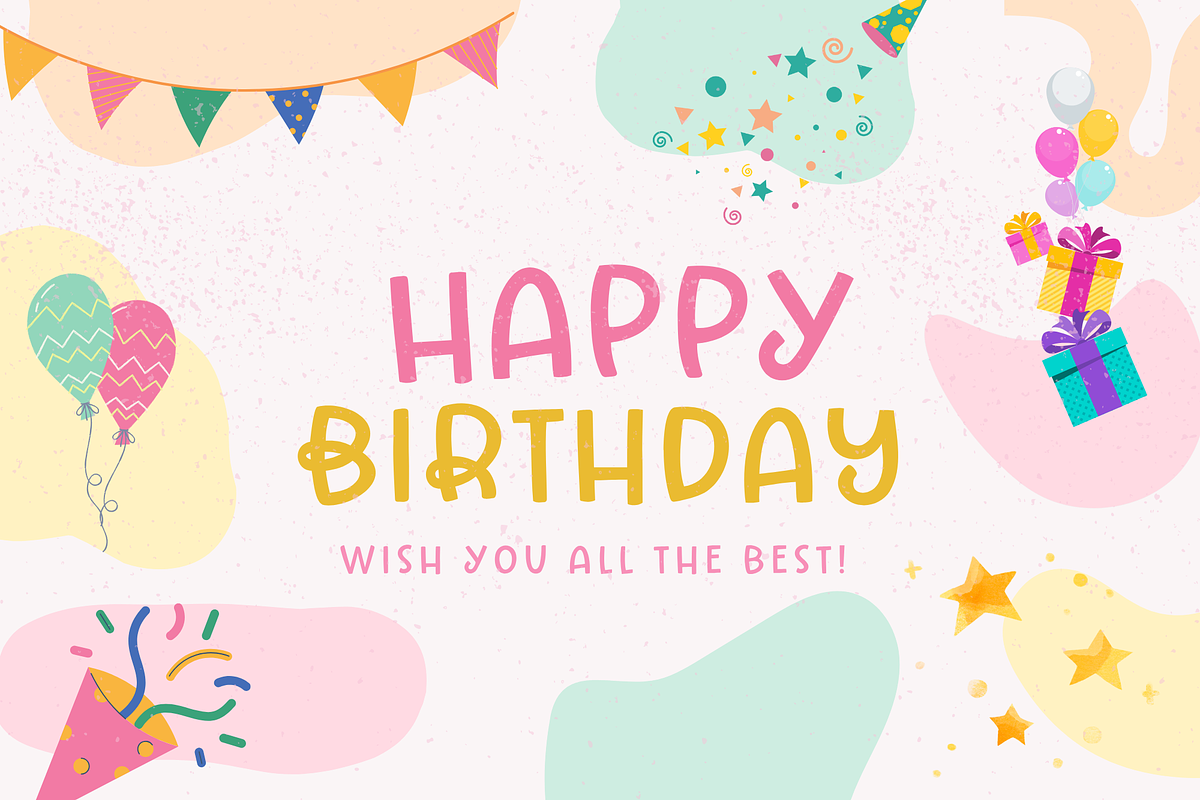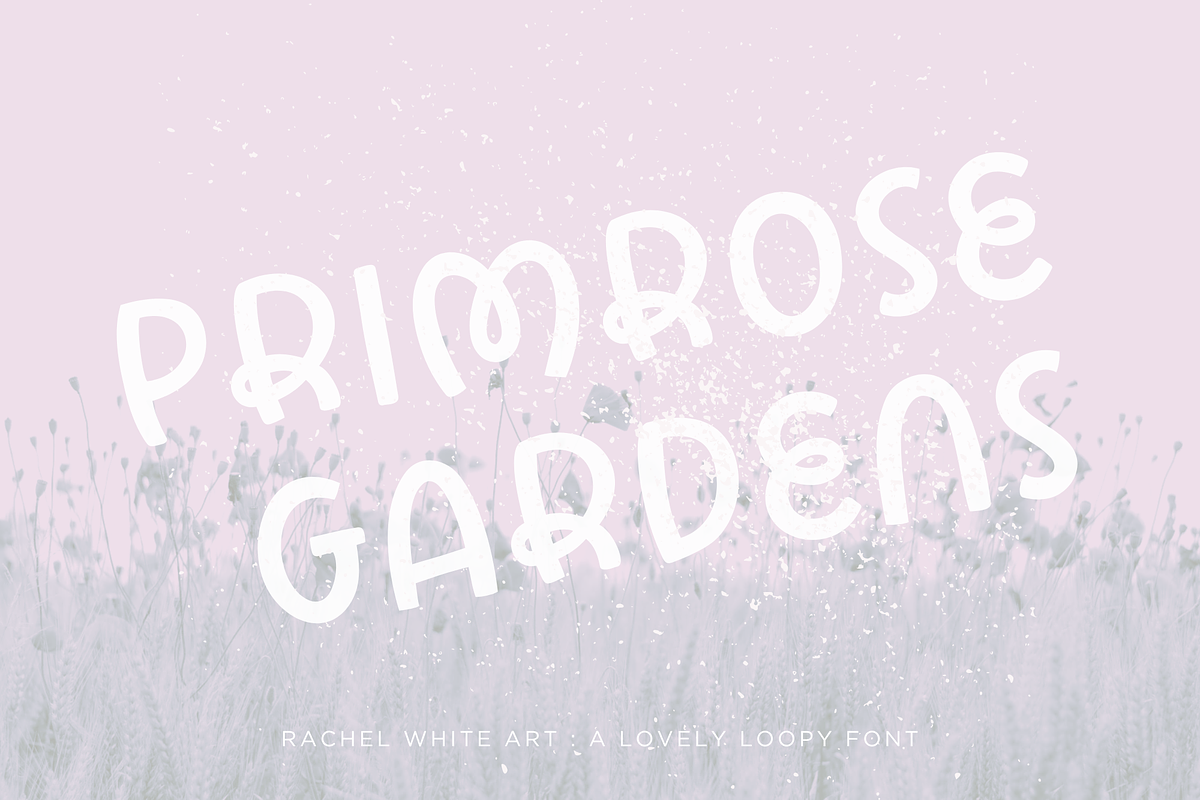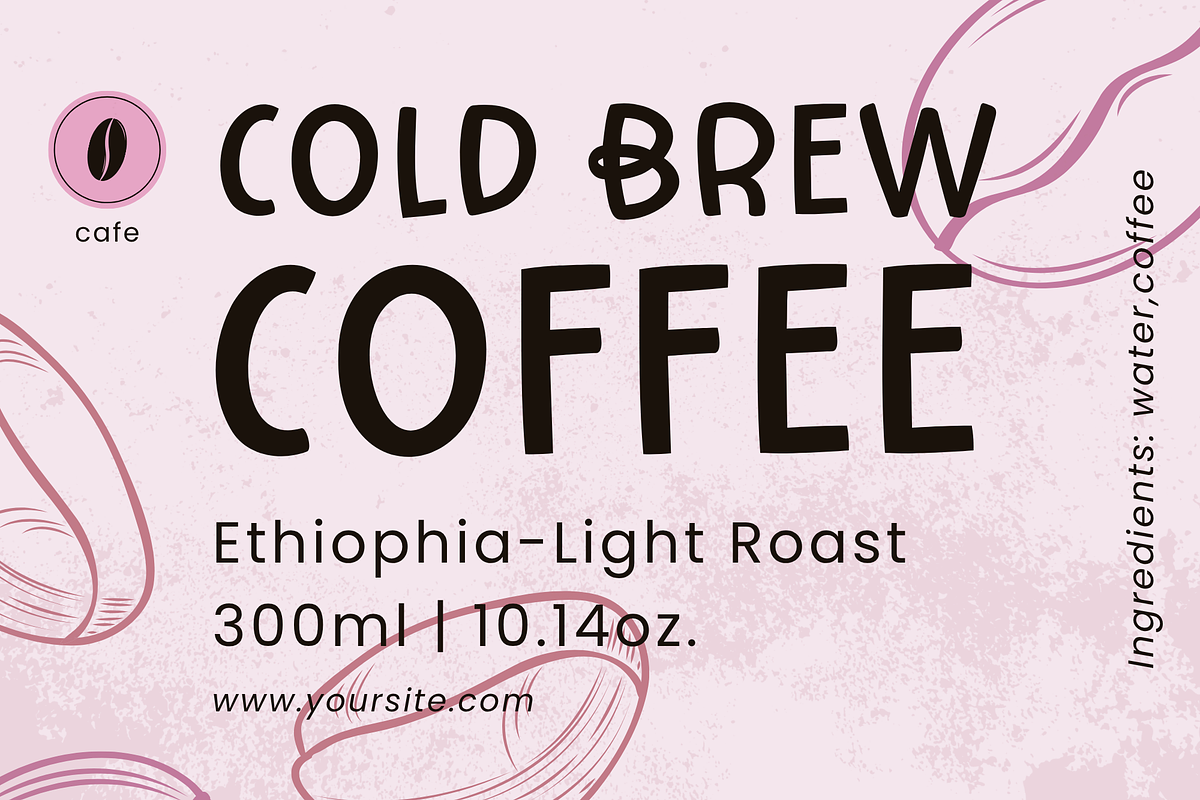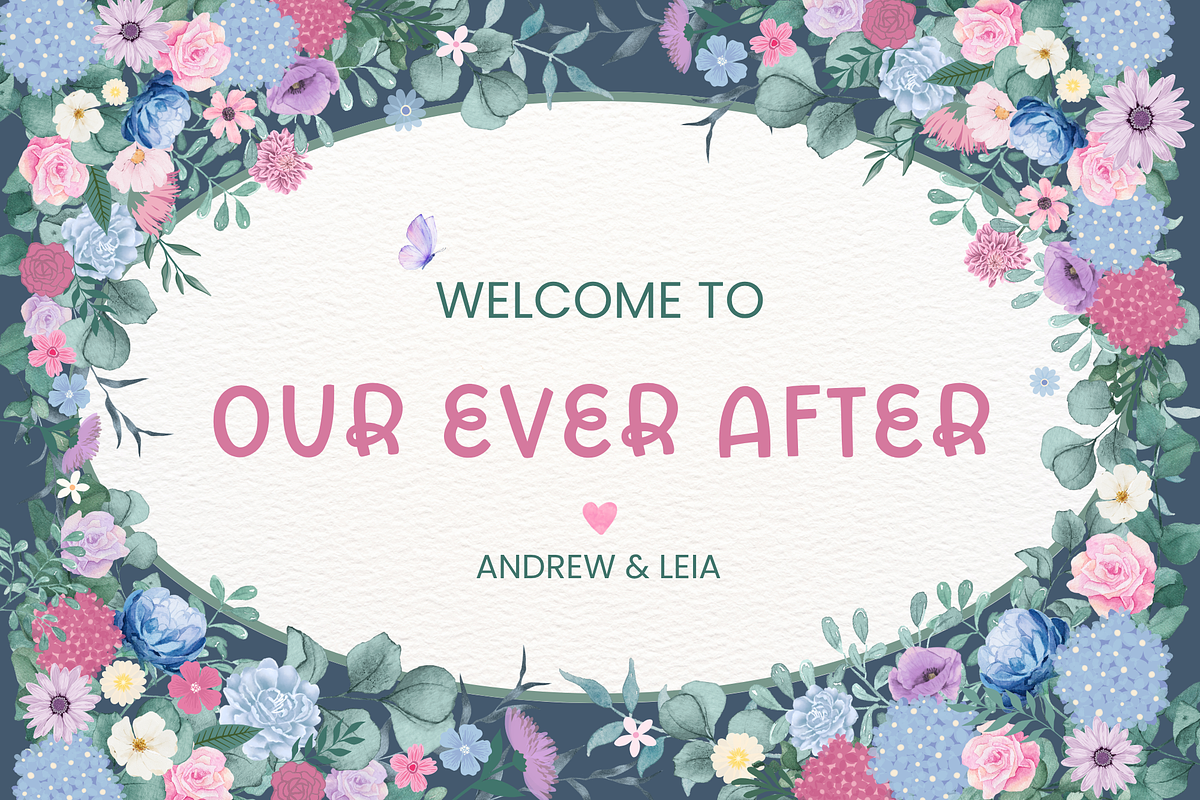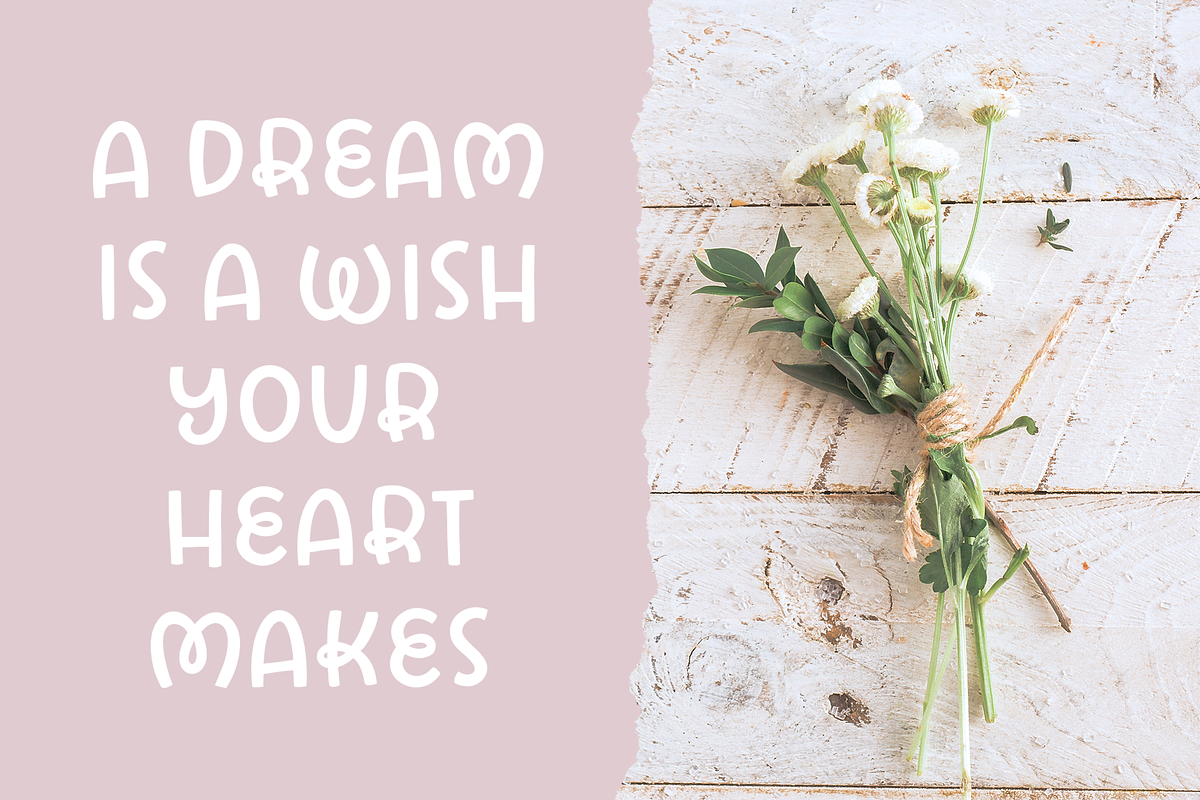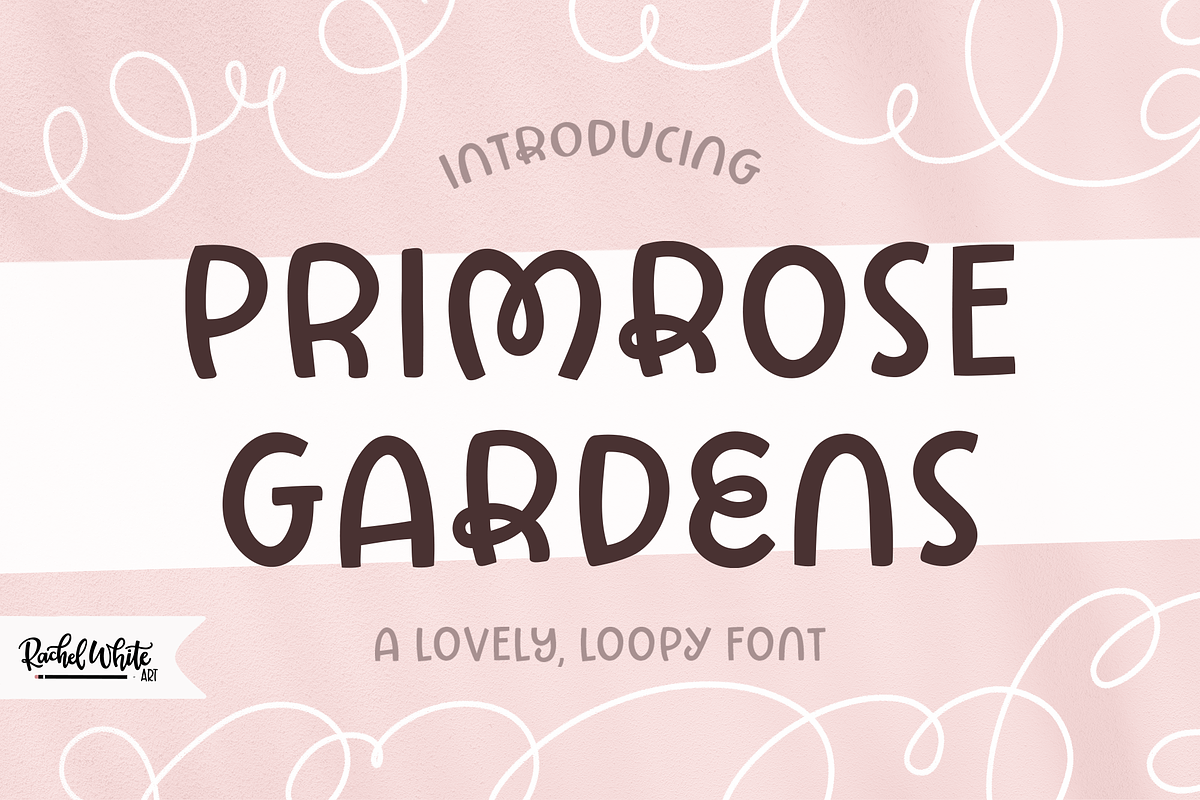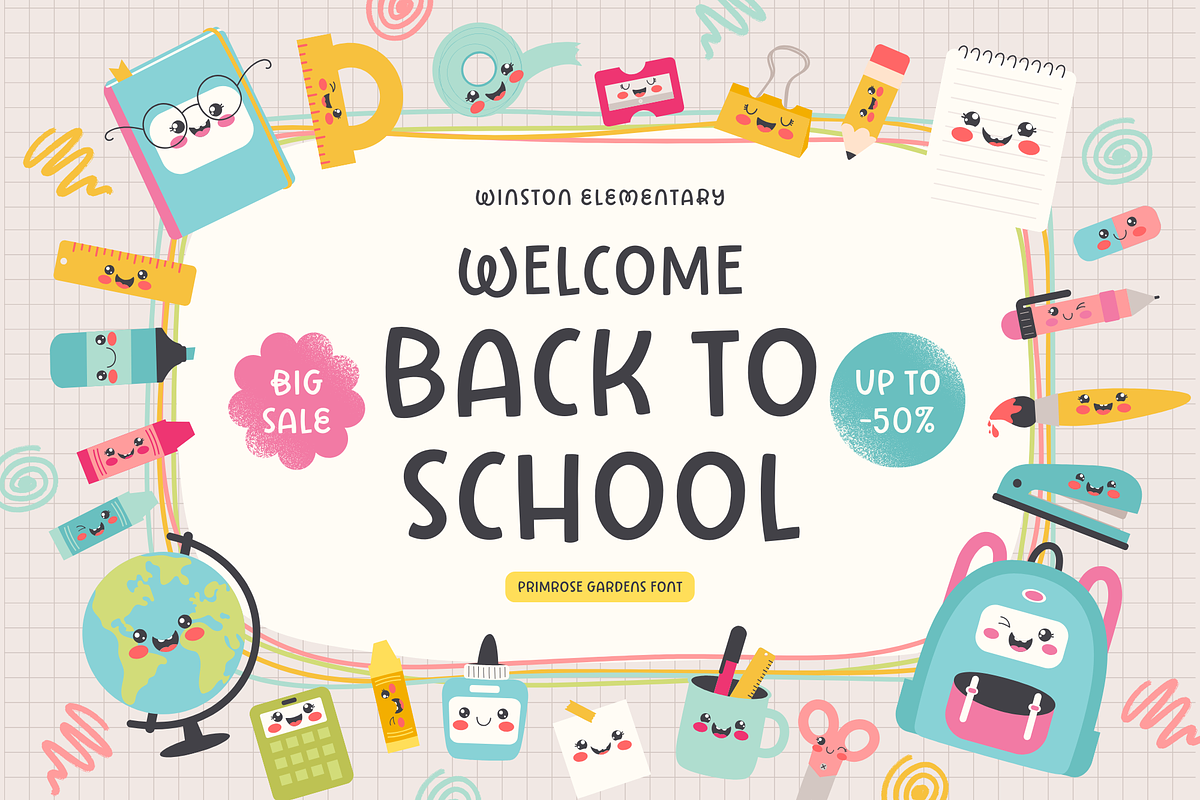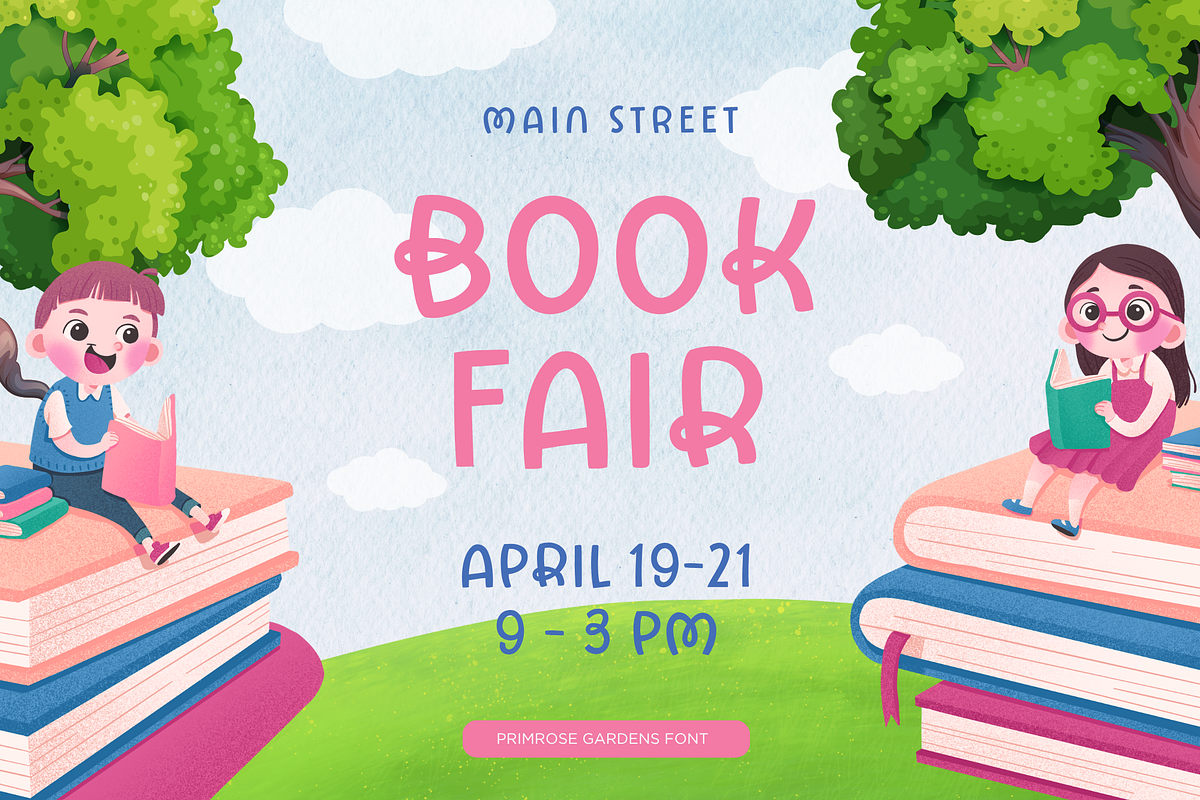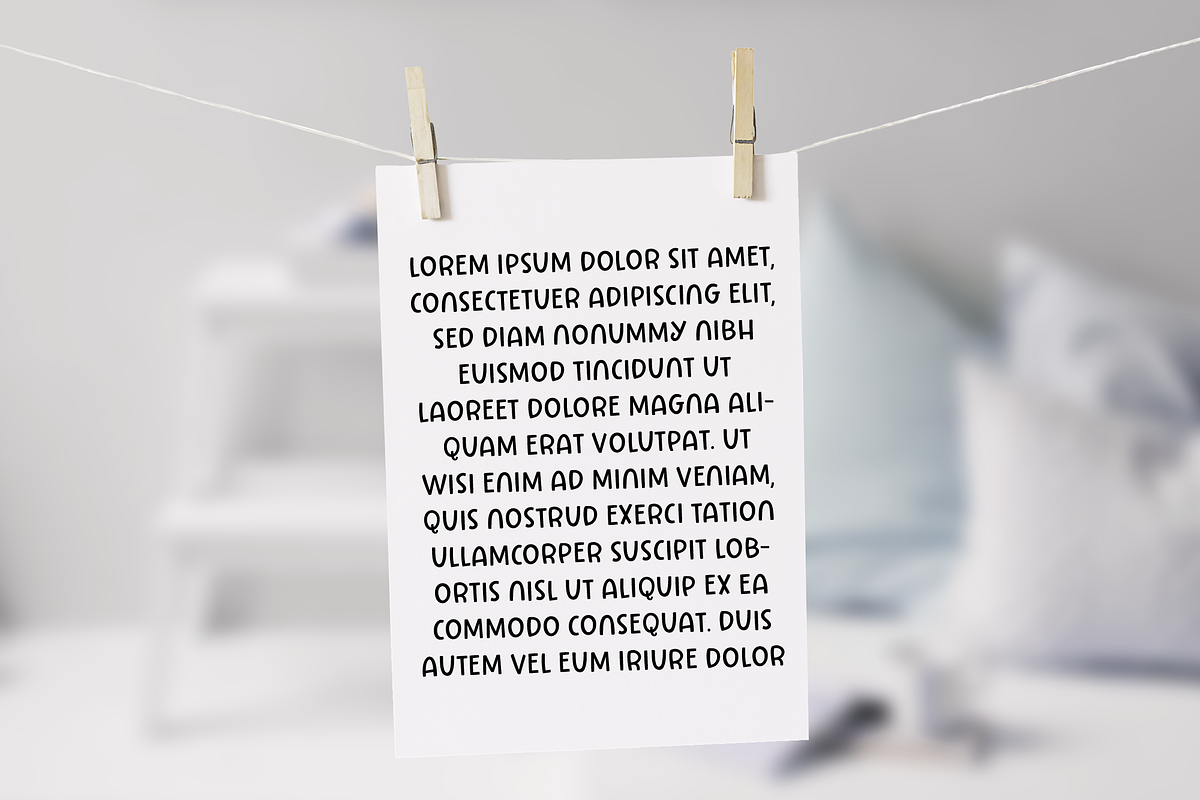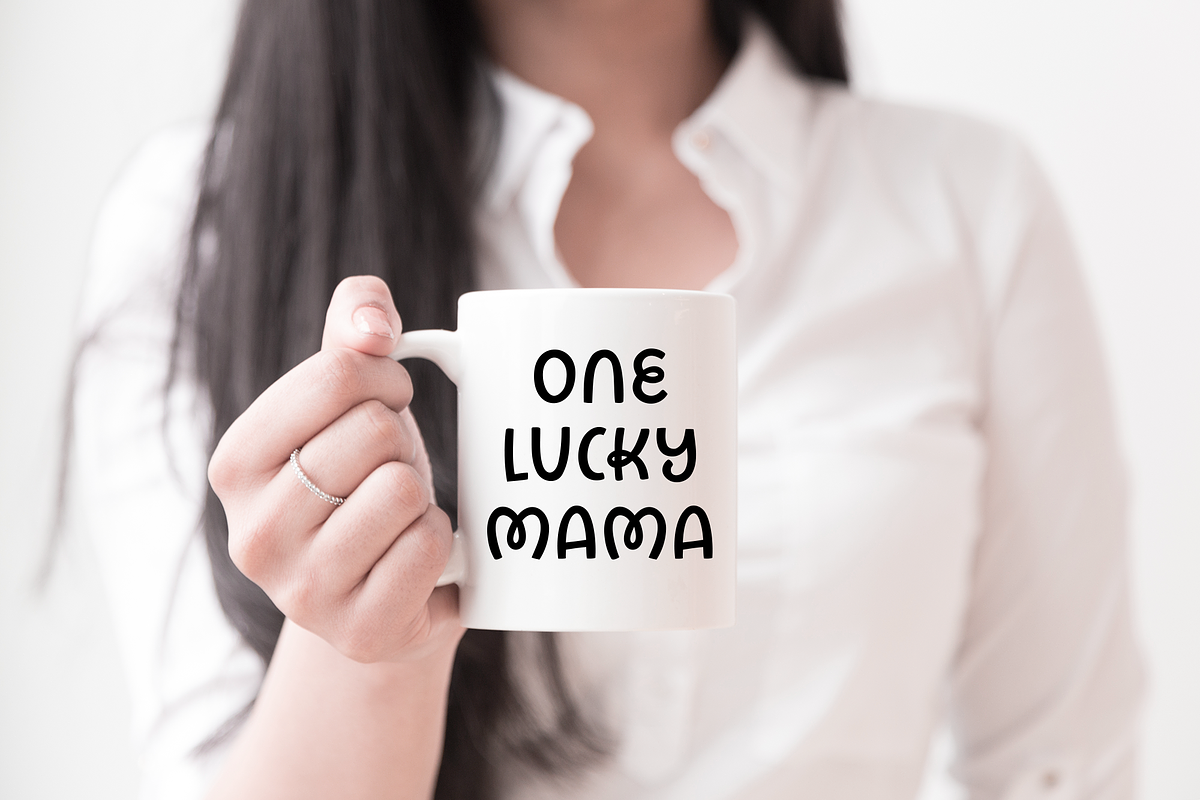
Primrose Gardens a lovely loopy font
Primrose Gardens is a cheerful, loopy script font with tons of personality. Its curly letterforms and friendly vibe make it a perfect choice for greeting cards, branding, social posts, party invites, and other fun, creative projects.
This hand-drawn font adds a lighthearted and playful feel to your work without being over-the-top—ideal for designs that need a touch of cute charm and a little flair.